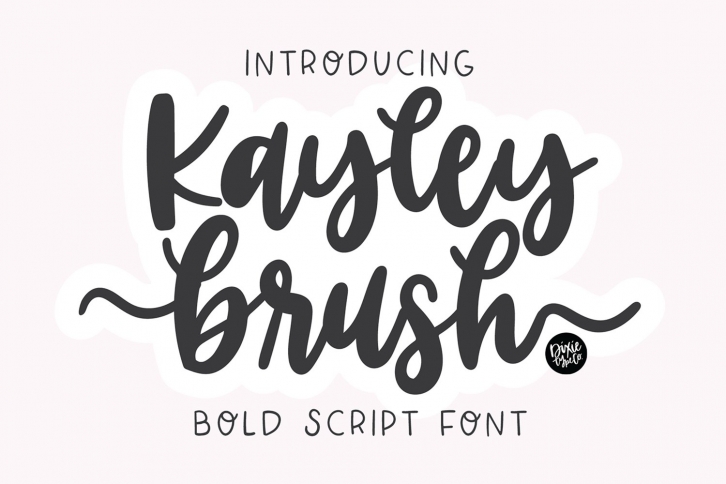
KAYLEY BRUSH a Beautiful Flourish Script is a gorgeous font that was realeased on April 13, 2021. The font can be used in many style contexts and design environments. Perfect for invitations, magazines, websites, logos, and more! It was designed by Dixie Type Co and the file size is 10.49 MB. Thanks for checking out this font!